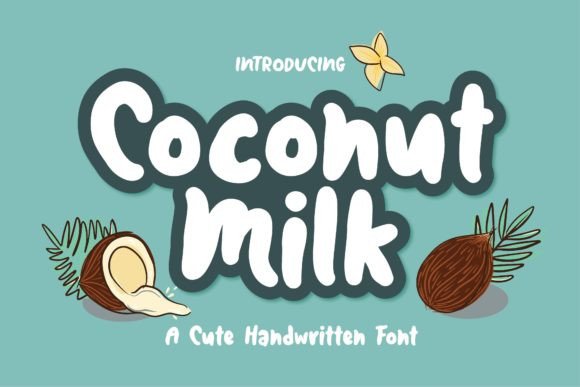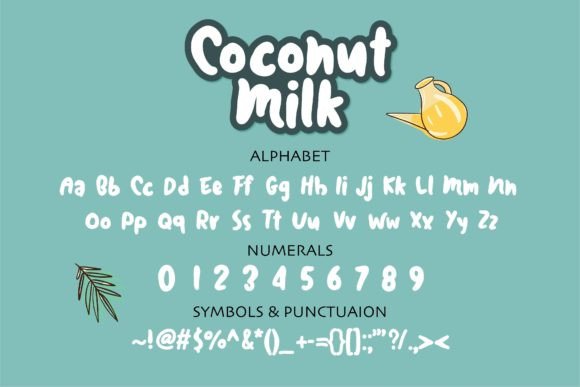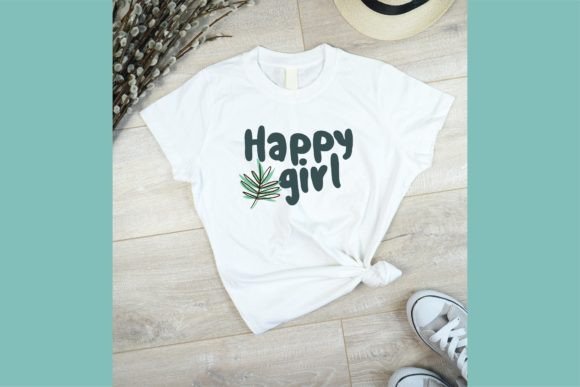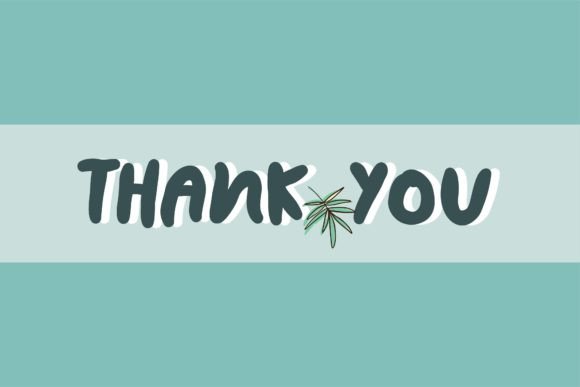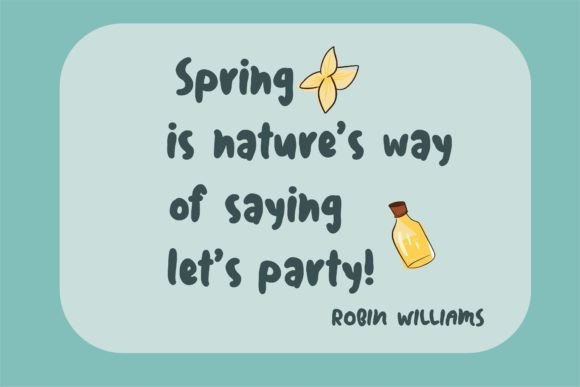
Coconut Milk Font
Coconut Milk Font: A Charming Handwritten Typeface for Whimsical Designs
Introducing Coconut Milk font, a delightful handwritten typeface that brings a whimsical touch to a variety of design projects. With its natural and distinctive style, this font offers a playful aesthetic that complements a wide range of creative endeavors, making it an exciting addition to your design toolkit.
Key Features of Coconut Milk Font
• Charming Handwritten Style: Mimics the feel of authentic handwriting
• Versatile Application: Ideal for wedding invitations, greeting cards, and more
• Unique Character: Infuses designs with personality and warmth
• Playful Aesthetic: Perfect for projects aimed at children or those needing a friendly touch
Perfect for Heartwarming Projects
Coconut Milk font excels in creating:
• Wedding Invitations: Adds sweetness and charm to special occasions
• Thank-You Cards: Infuses gratitude with a warm and personal flair
• Inspirational Quotes: Breathes life into words with its unique charm
• Greeting Cards: Turns simple messages into memorable keepsakes
• Logos: Creates playful and approachable branding that appeals to diverse audiences
Why Choose Coconut Milk Font?
This font’s inherent charm shines through in every application. Its playful handwritten style ensures that your content radiates warmth and friendliness, making it ideal for designers who want to create engaging and memorable visuals. Whether you’re crafting heartfelt notes or designing eye-catching promotional materials, Coconut Milk font adds a delightful touch to any project.
Coconut Milk font is more than just a typeface; it’s an invitation to explore your creativity. Whether you’re working on wedding stationery, children’s books, or any project that benefits from a handwritten touch, this font will help you create designs that truly stand out. Add Coconut Milk to your font collection today and experience the transformative power of its charming aesthetic on your creative endeavors. Let this delightful handwritten font be the secret ingredient that elevates your designs from ordinary to extraordinary, capturing the hearts of your audience. Whether you’re an experienced designer or someone who simply appreciates the beauty of whimsical design, Coconut Milk is your go-to font for embracing creativity and playfulness in every project. Its versatility allows it to shine in various applications, from labels to packaging, making it a valuable asset in any designer’s toolkit.